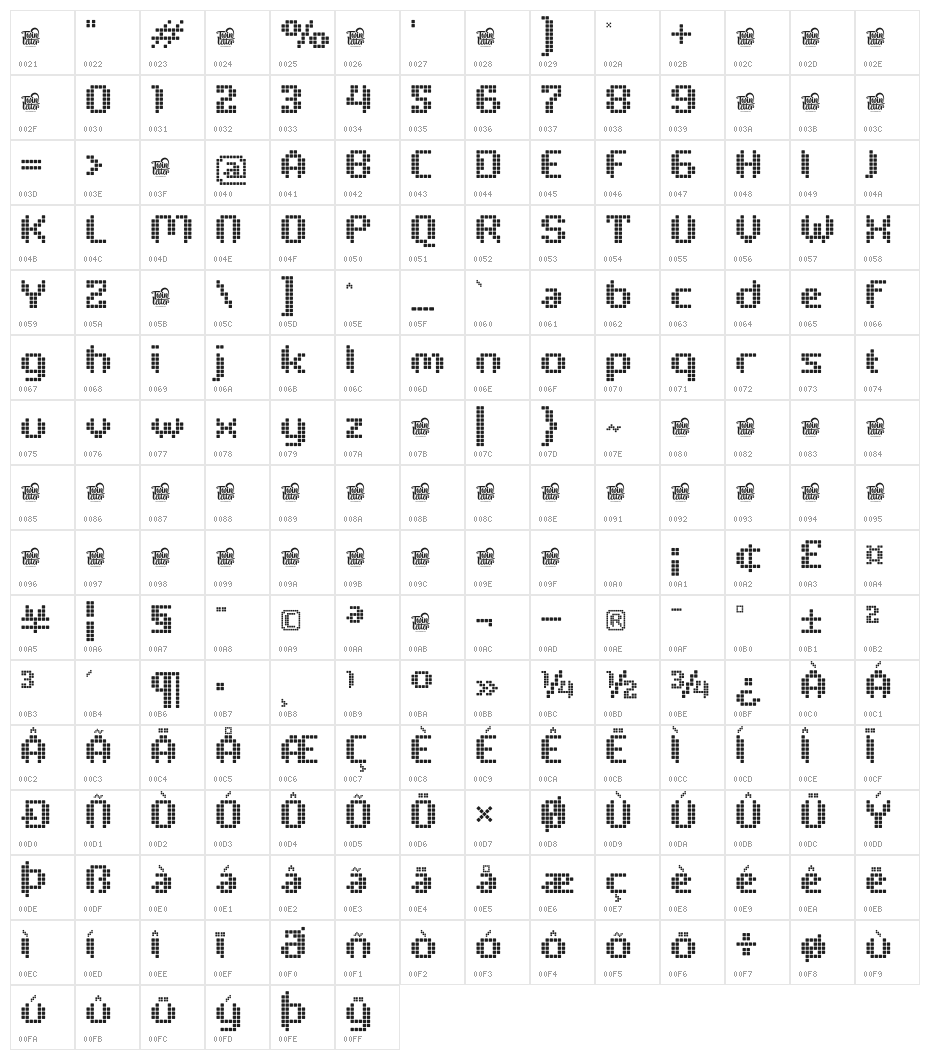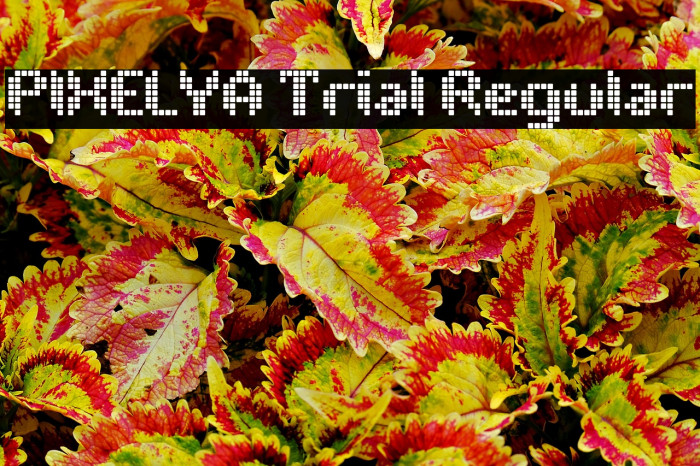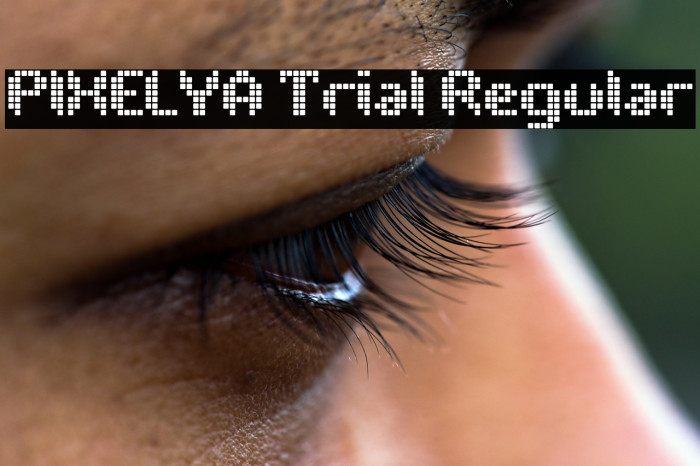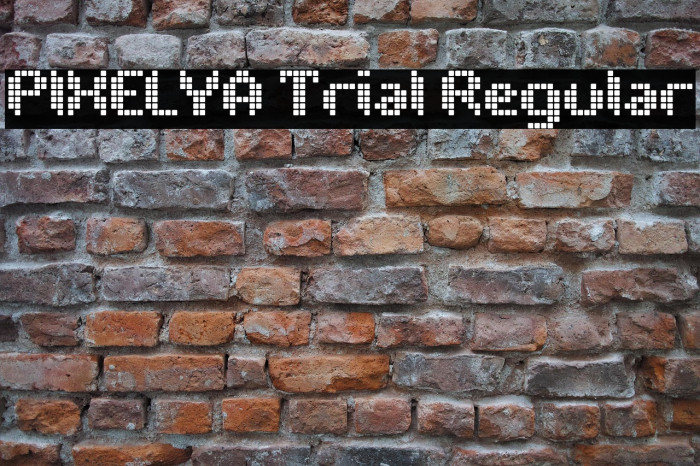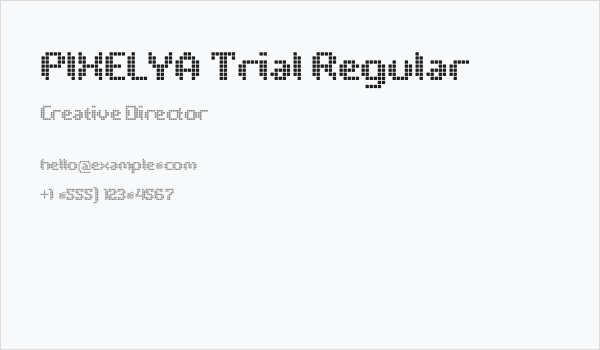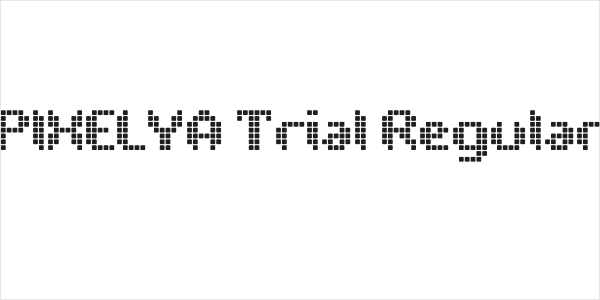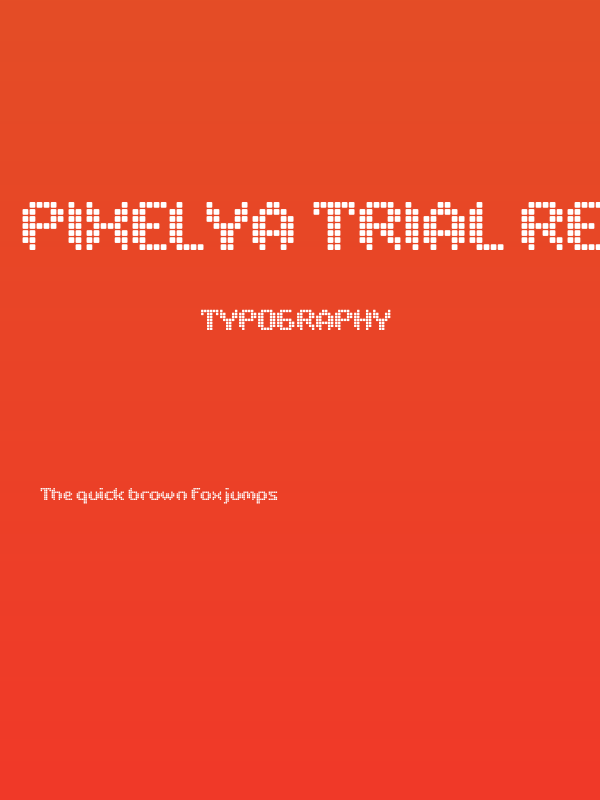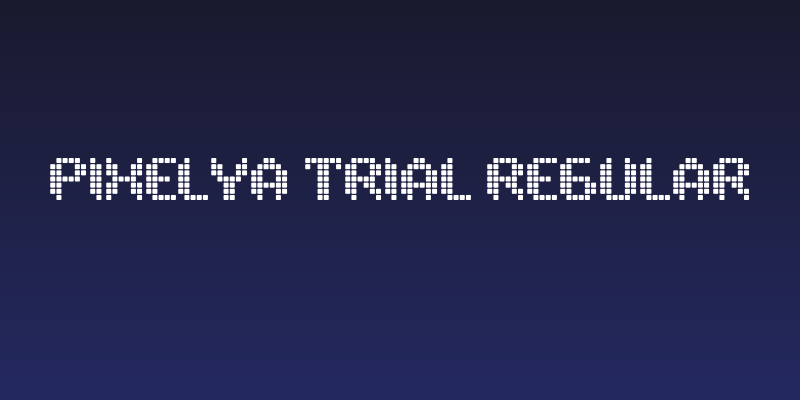
PIXELYA Trial Regular Font
PIXELYA Trial Regular Description
This font features a unique pixelated design, where each character is composed of small square blocks, creating a digital and retro aesthetic. The uppercase and lowercase letters, along with numbers and special characters, maintain a consistent grid-like structure, emphasizing a uniform and geometric appearance. The style is reminiscent of early digital displays or video game graphics, offering a nostalgic yet modern feel. The characters are evenly spaced, ensuring readability while maintaining the distinct pixelated look.
| Use Case | Logos, Headlines, Digital Art |
| Proposed Projects | Ideal for digital art projects, retro-themed designs, video game graphics, and tech-related branding. |